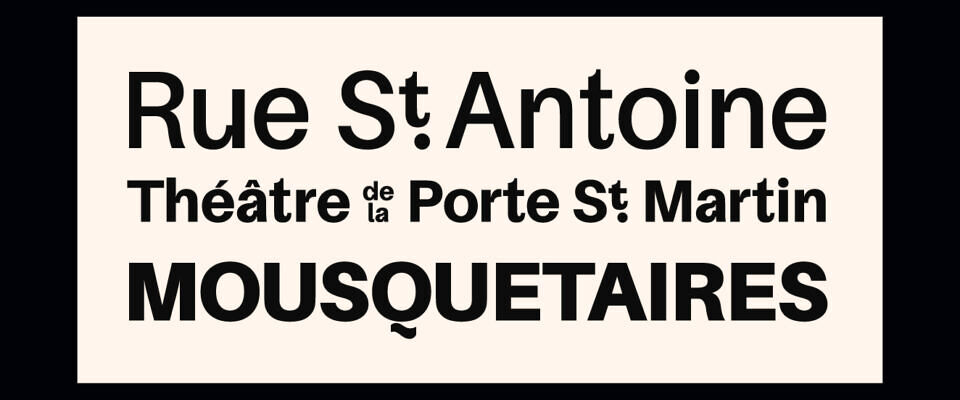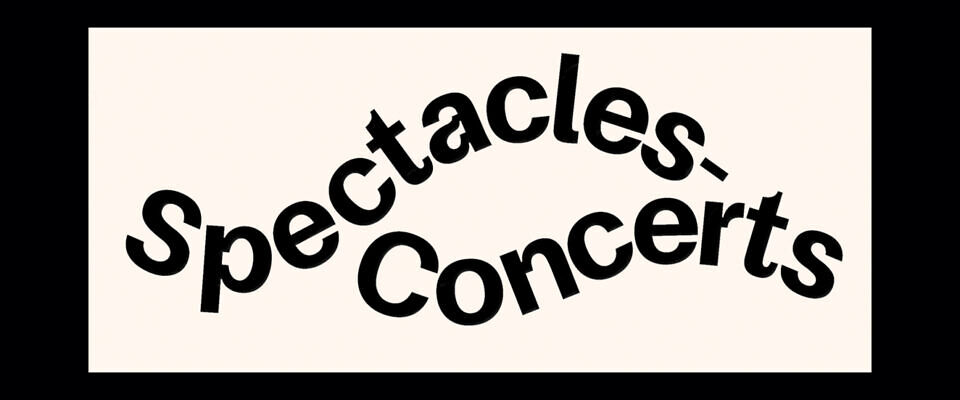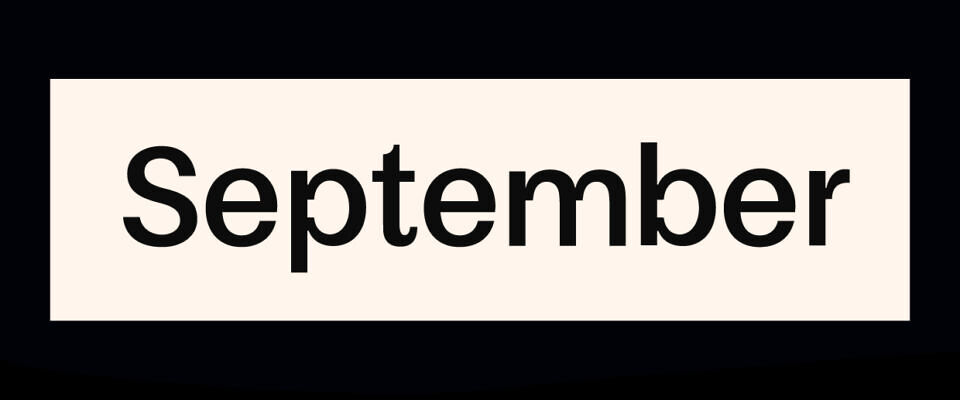
St. Martin is an evocative “stencil type that wasn’t” — a modern reinterpretation of a rare 19th-century typographic feature. With clean, open letterforms and subtle stencil gaps, it offers an elegant yet industrial aesthetic.
Designed by Carl J. Kurtz, its sans-serif structure maintains high legibility even with break-through strokes and soft curves. Ideal for headlines, branding, editorial, and posters, St. Martin brings historical nuance and visual intrigue to modern design projects.
St. Martin font family is a modification of Mirat-Masson’s 2022 typeface Amiamie, which itself is based on Sora Sagano’s Aileron, designed in 2014 for TipoType.